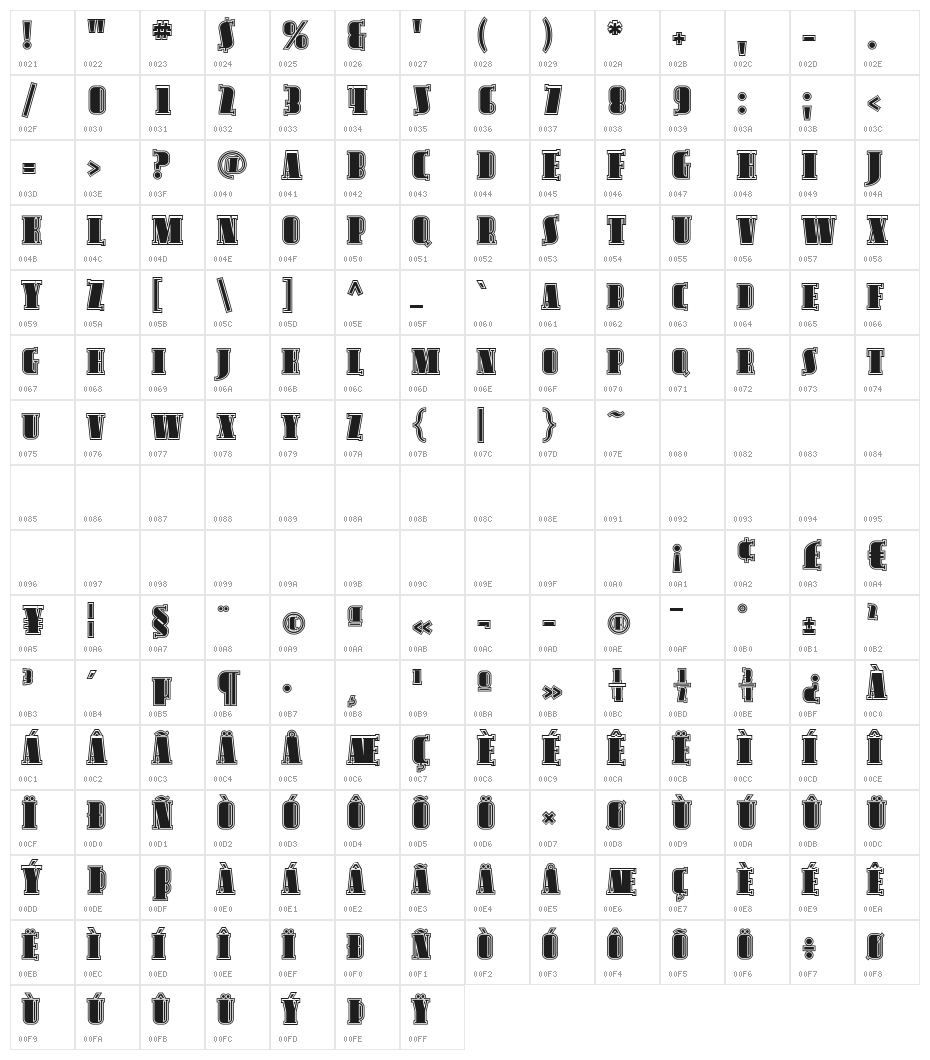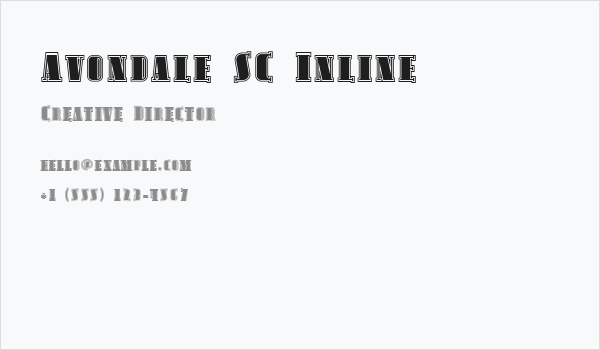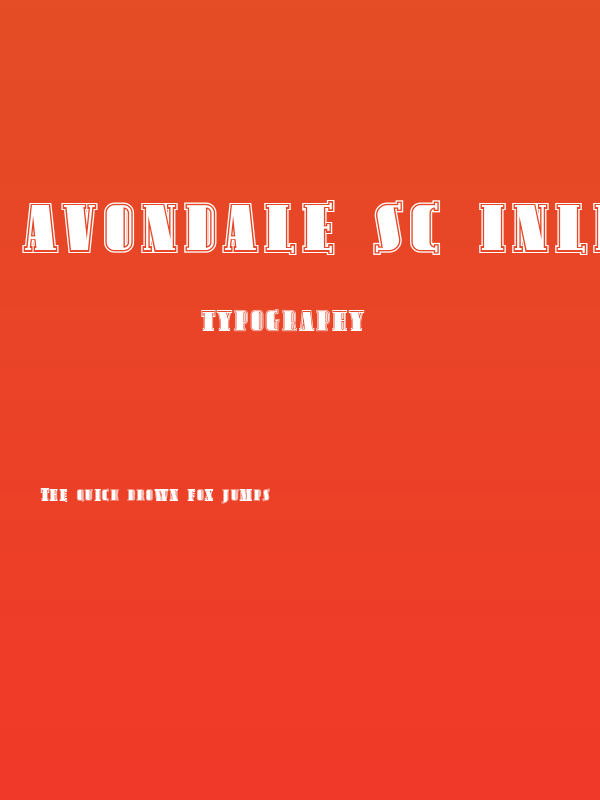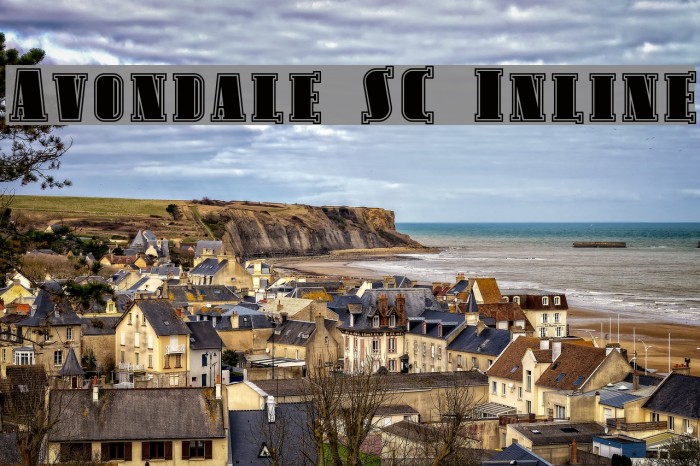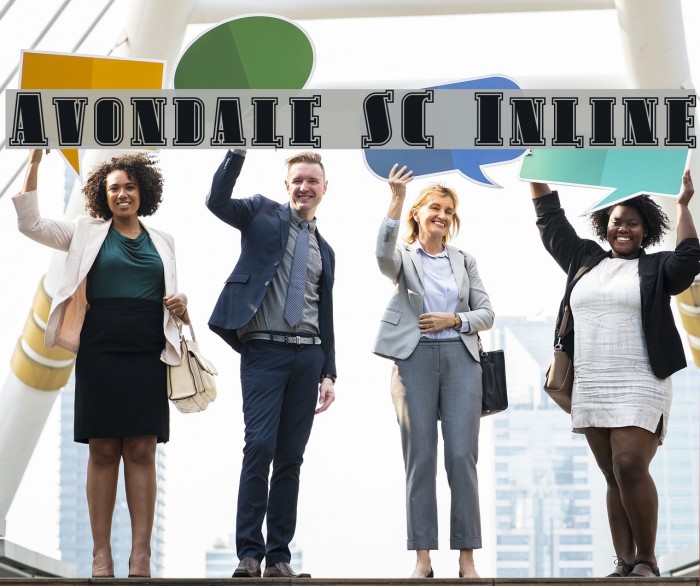
Avondale SC Inline Font
Avondale SC Inline Description
This font features a bold and striking design with an inline style that adds depth and dimension to each character. The uppercase letters are robust and commanding, with sharp serifs and a strong presence. The inline detail creates a sense of movement and sophistication, making it ideal for attention-grabbing headlines or titles. The numerals and special characters maintain the same boldness and inline styling, ensuring consistency across all text elements. The overall look is both classic and modern, suitable for a variety of design projects.
| Overall Style | Classic, Modern |
| Proposed Projects | Ideal for posters, logos, branding, and any design requiring a strong, eye-catching typeface. |